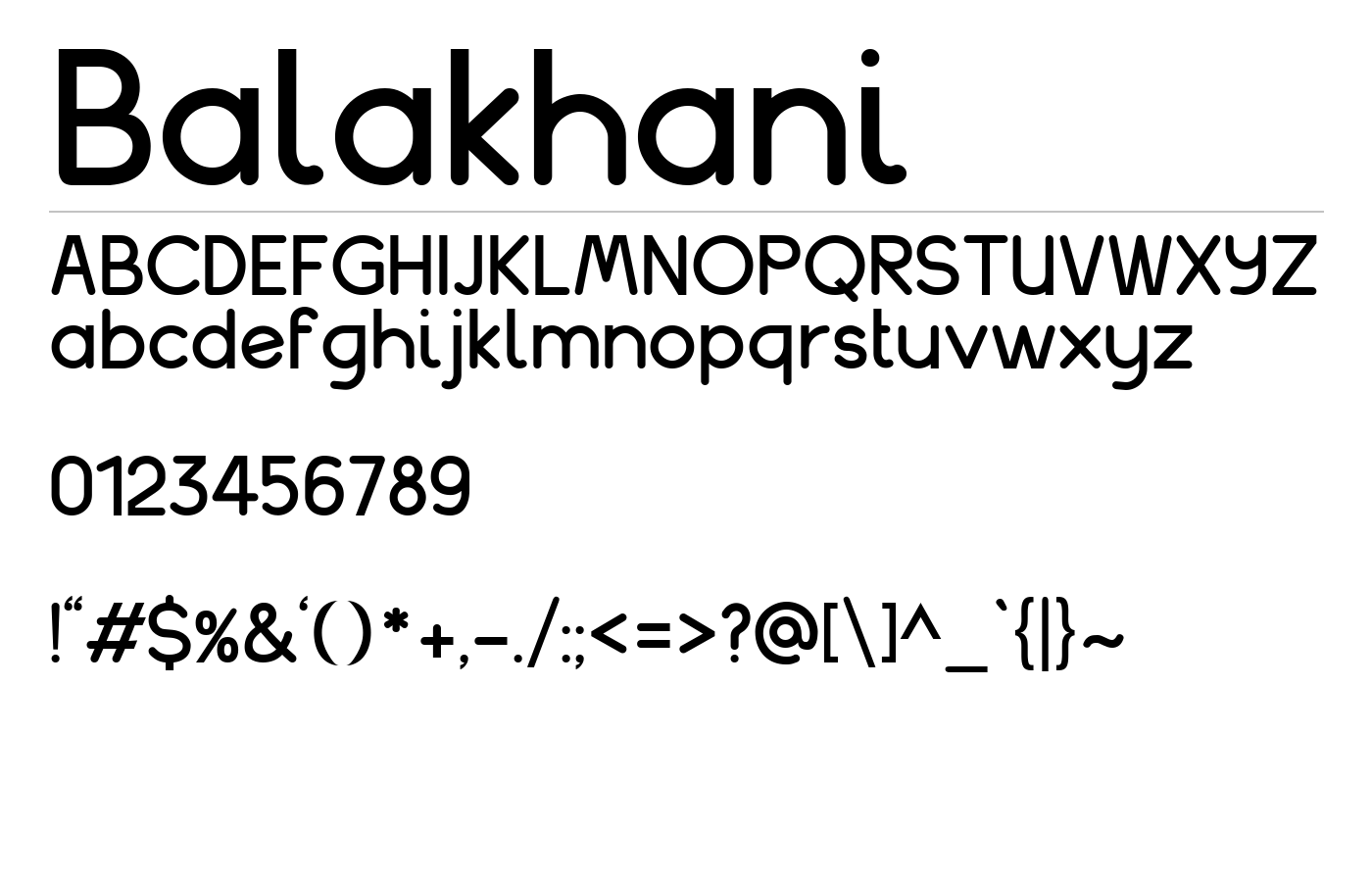
Balakhani is a clean and modern sans serif font with a friendly, geometric style. Its medium weight and consistent stroke width make it highly readable, while unique letterforms like the single-story 'a' and curved terminals add a playful, approachable feel. This font works well for branding, editorial design, and digital interfaces where clarity and personality are important.
Balakhani Font
About Balakhani Font
| Font family | Balakhani Font |
| Languages supported | Latin, Cyrillic, Symbols, Greek |
| Designer | Tural Alisoy |